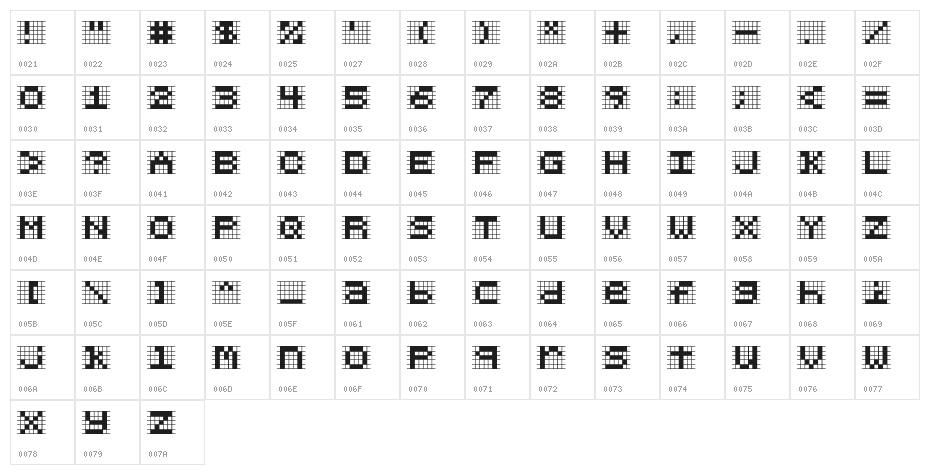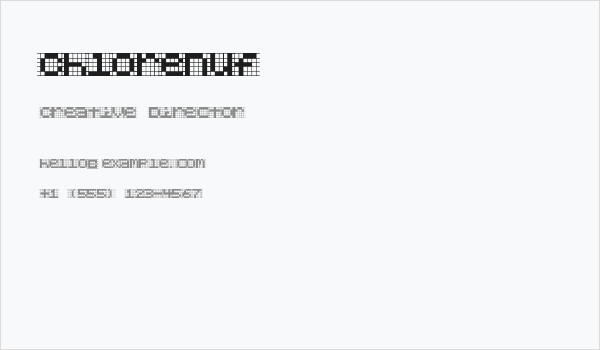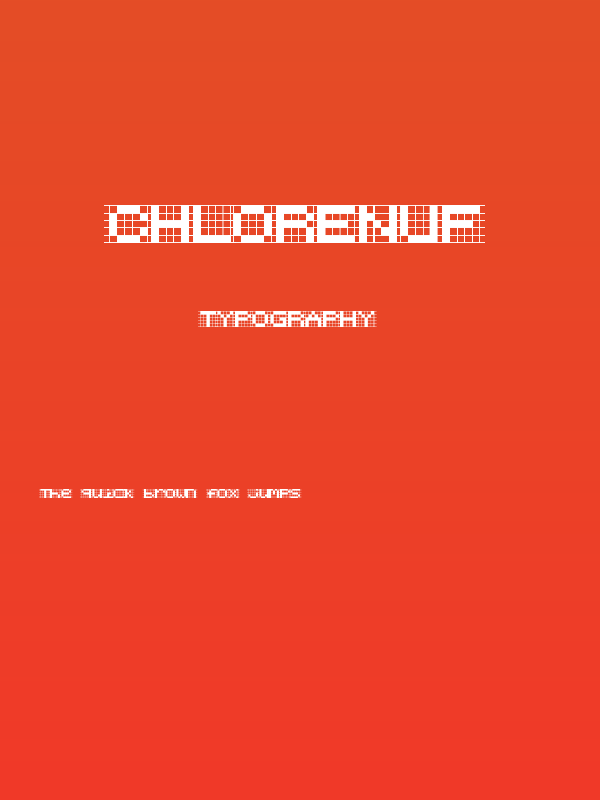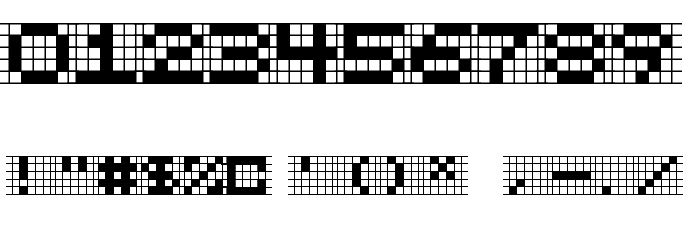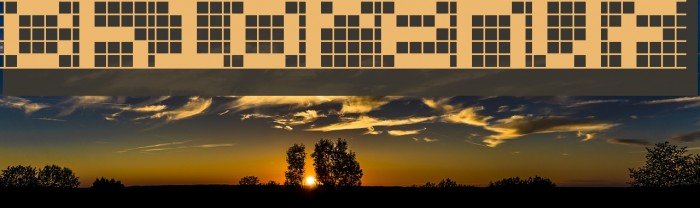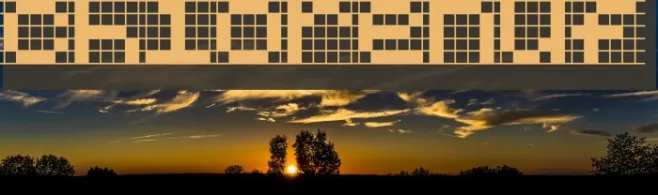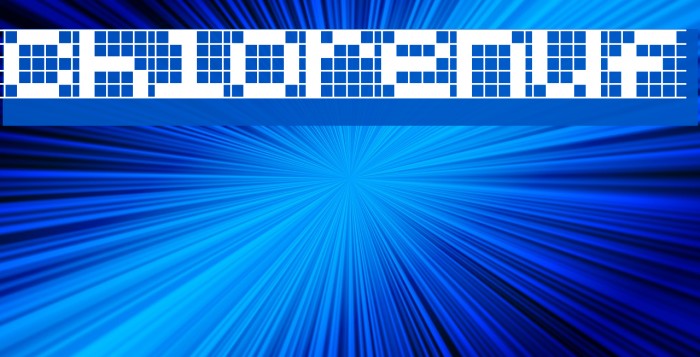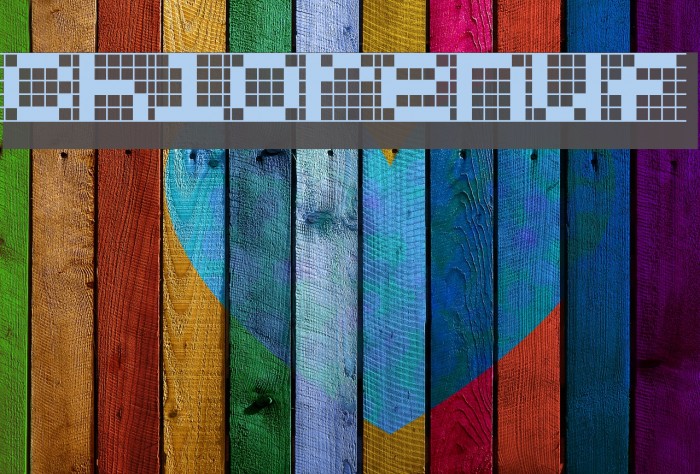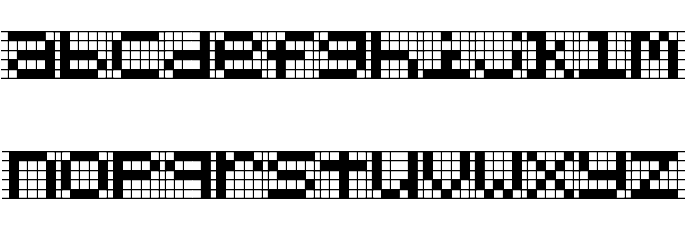
Chlorenuf Font
Chlorenuf Description
This font is a pixelated, grid-based typeface that evokes a digital or retro gaming aesthetic. Each character is constructed from a series of small squares, creating a blocky and geometric appearance. The uniformity of the grid gives it a structured and consistent look, while the pixelated style adds a nostalgic feel reminiscent of early computer graphics or arcade games. The characters are well-defined and easily distinguishable, making it suitable for digital displays or projects that require a tech-inspired theme.
| Use Case | Headlines, Logos, Digital displays |
| Proposed Projects | Ideal for video game design, digital art projects, tech-themed posters, or any creative work that seeks a retro or digital look. |